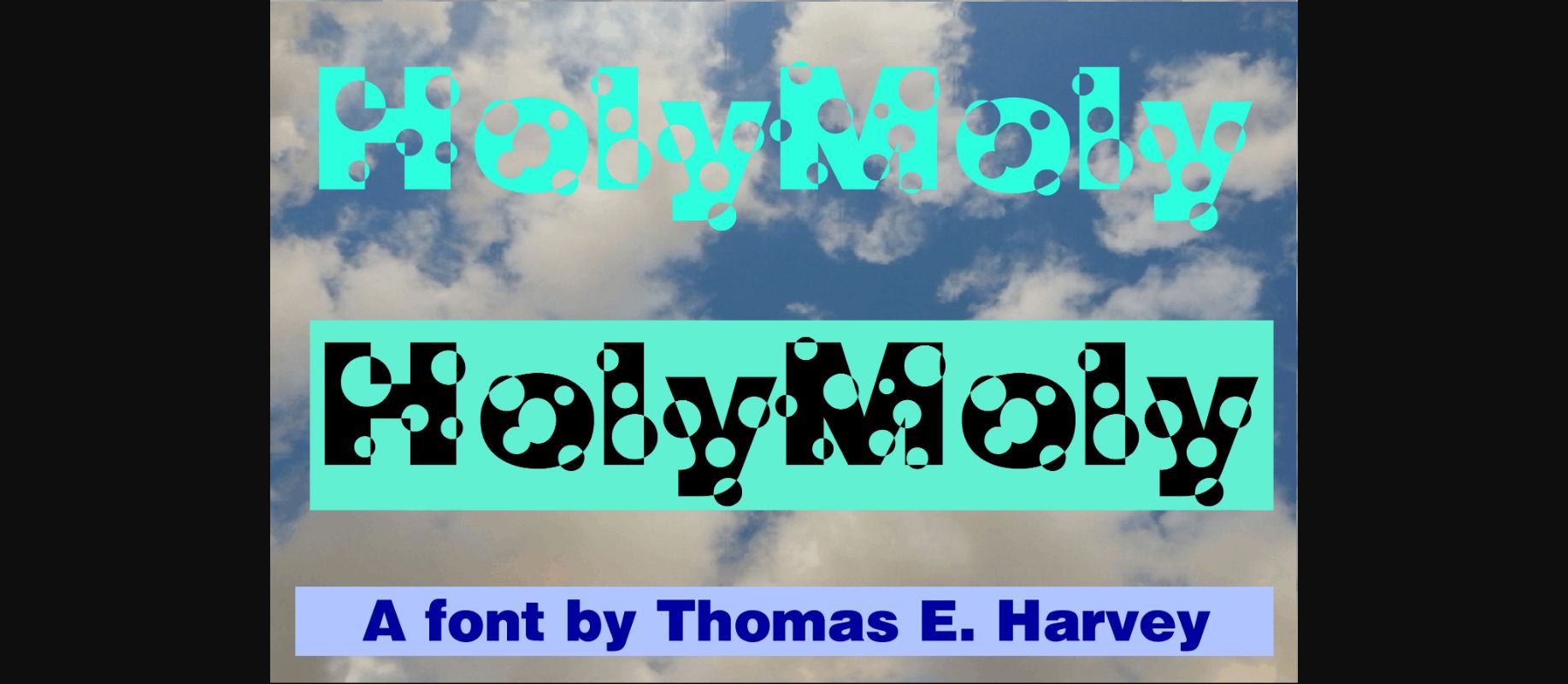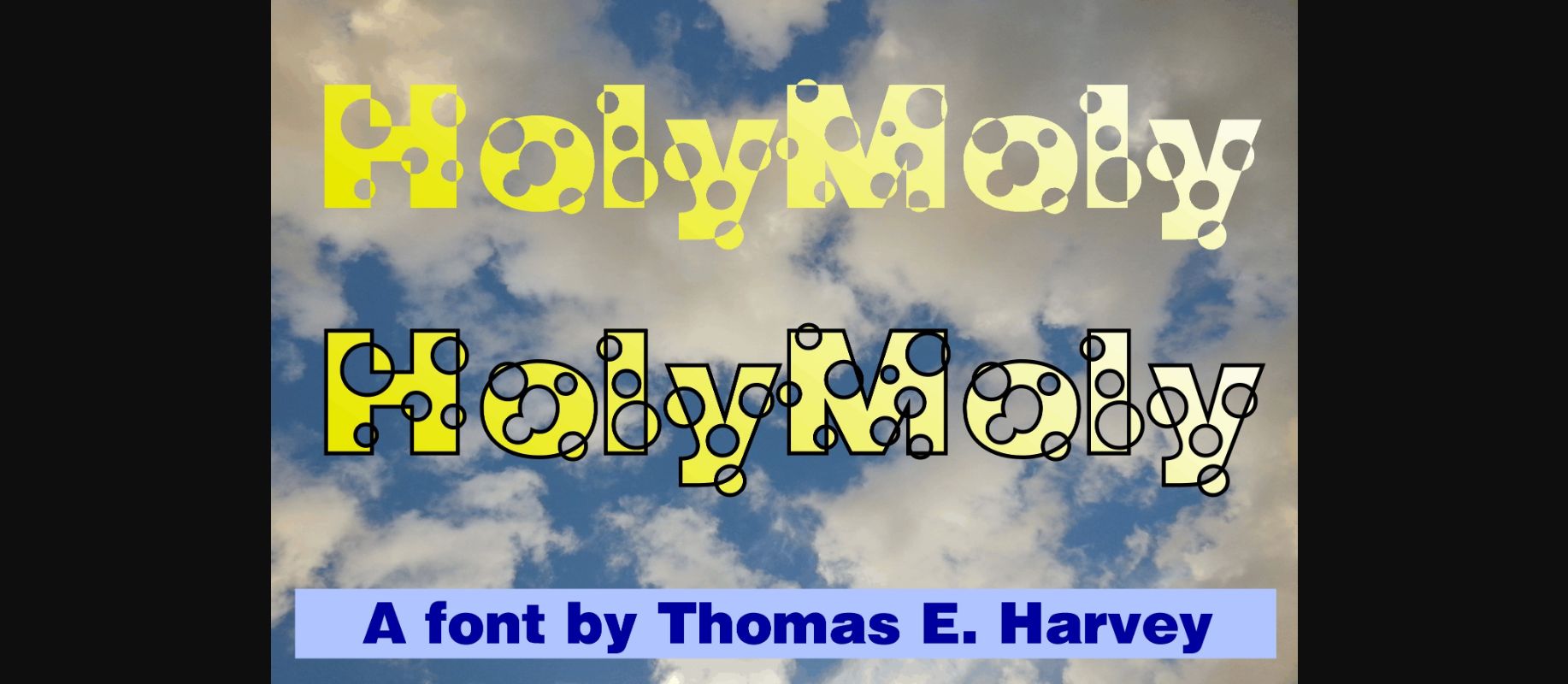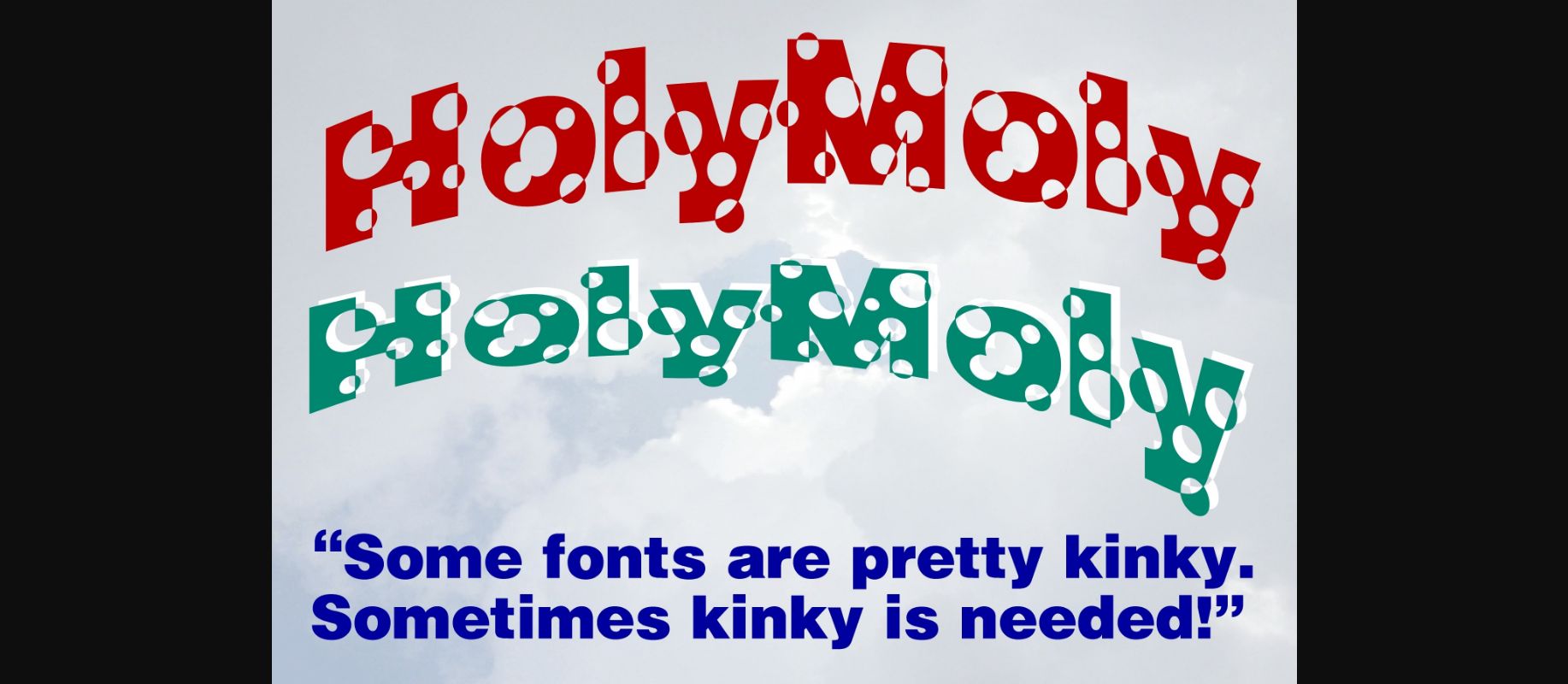
About HolyMoly Font
For a festive gathering, at which there would be a lot of “bubbly” flowing, this font was made as a typeface for the invitations and graphics to those parties! Use it for birthdays, anniversaries, announcements, soap bubble parties, whatever! Based on a Helvetica Black, it’s a strong announcement of fun to come.